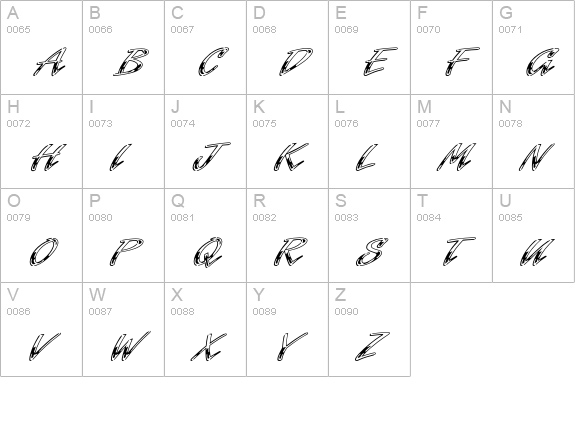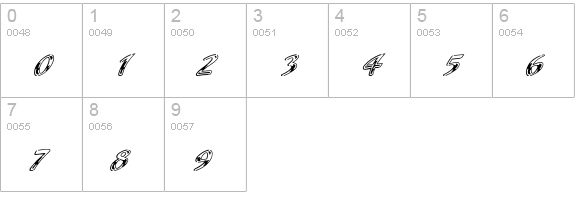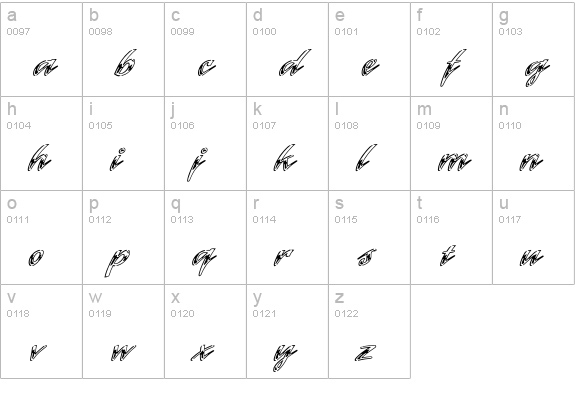
LaserICG-Chrome Font Details
LaserICG-Chrome is a captivating and futuristic font that will instantly transport you to a world of sleek designs and modern aesthetics. Its sharp edges and precise lines create a sense of precision and sophistication, making it the perfect choice for any project that requires a touch of elegance. With its chrome-like appearance, LaserICG-Chrome exudes a sense of innovation and cutting-edge technology. Whether you're designing a logo, creating eye-catching headlines, or adding a touch of elegance to your website, this font is sure to make a lasting impression. The best part? LaserICG-Chrome is available for free download at FontsMarket.com. That's right, you can enhance your design projects without spending a dime. Simply head over to FontsMarket.com and get your hands on this incredible font today. Don't miss out on the opportunity to elevate your designs with LaserICG-Chrome. Download it for free now and let your creativity soar to new heights.